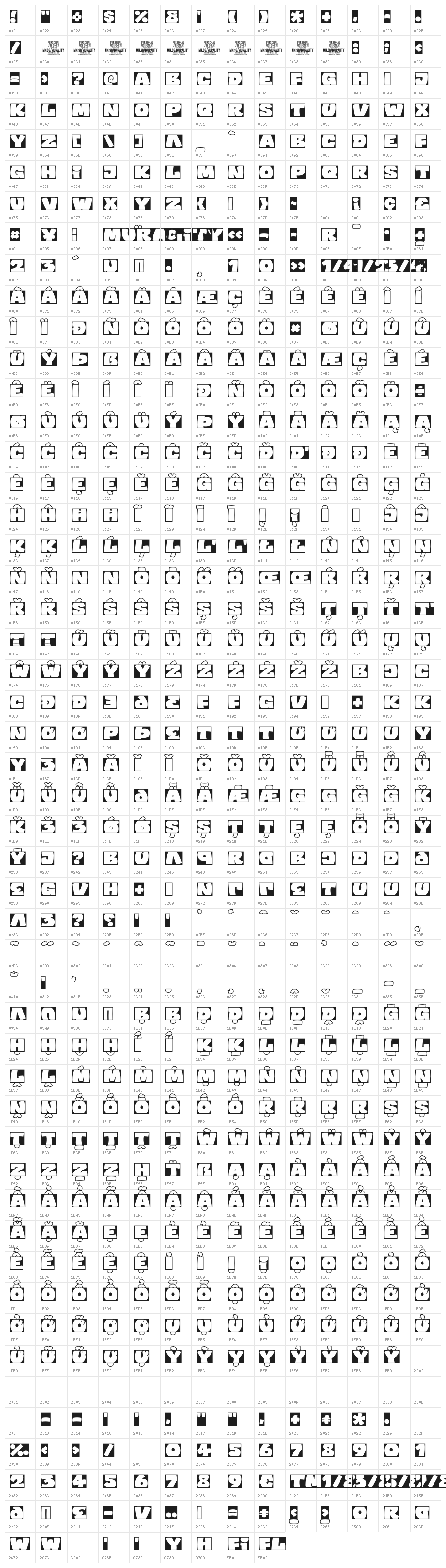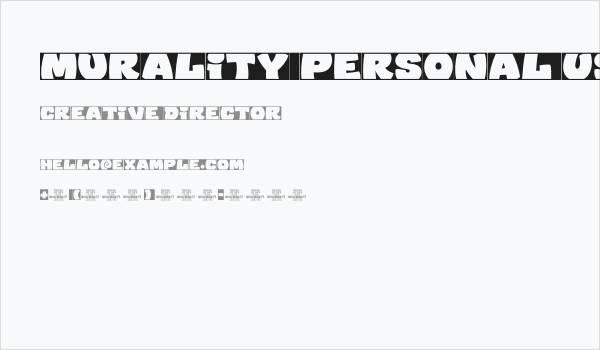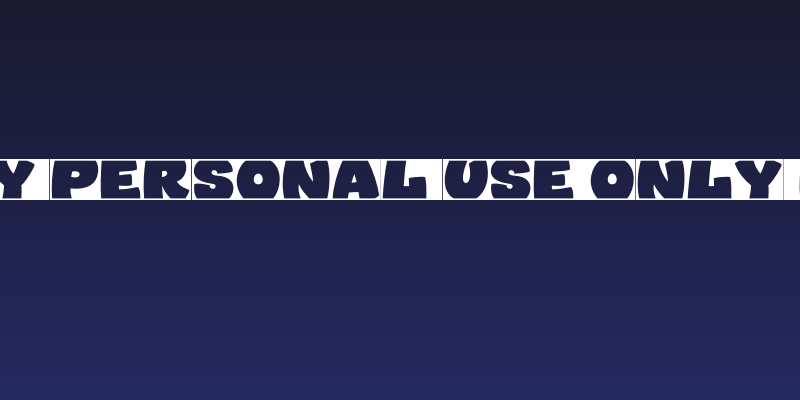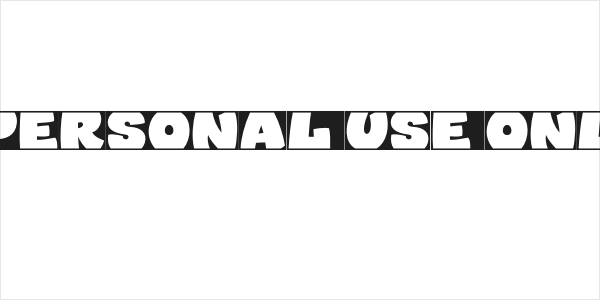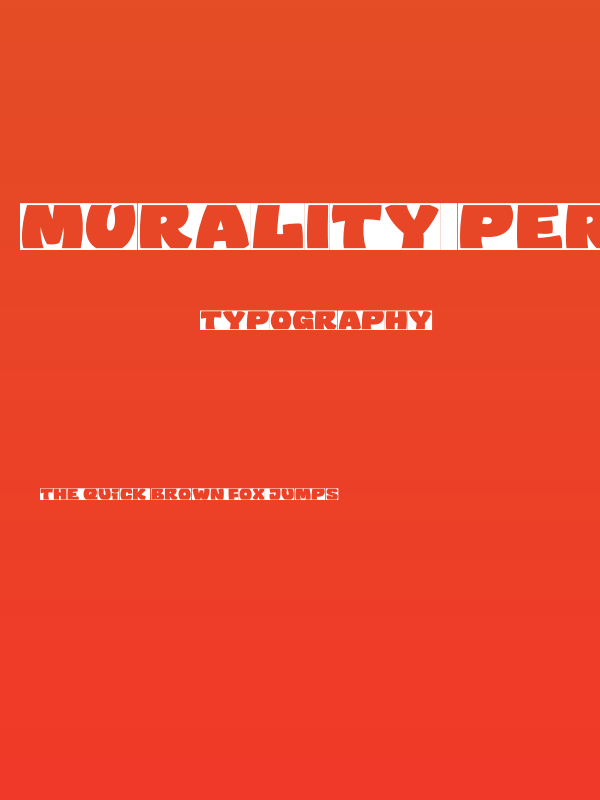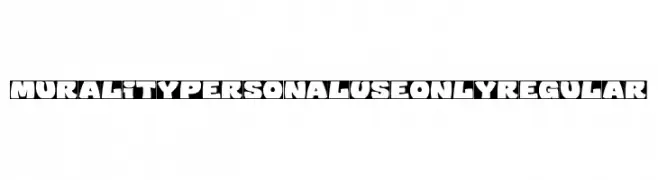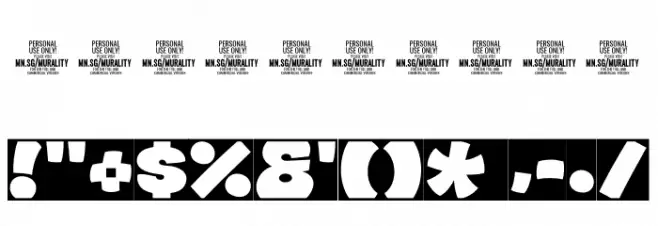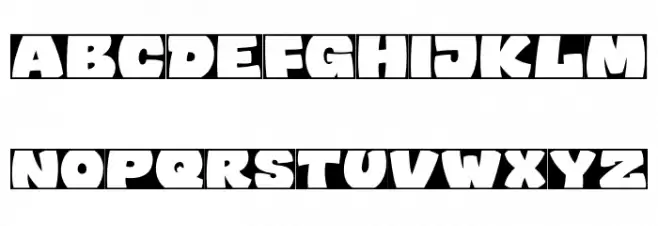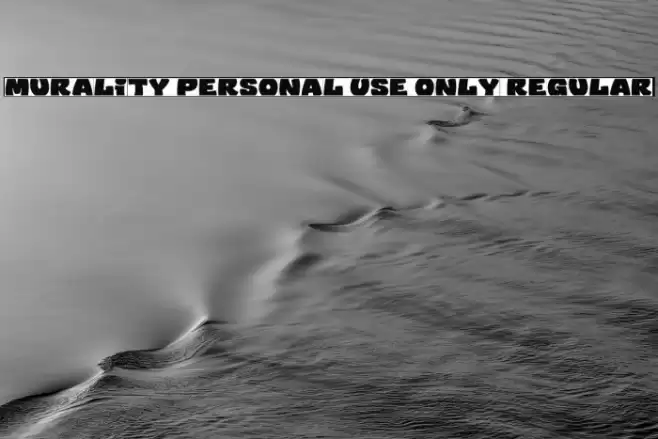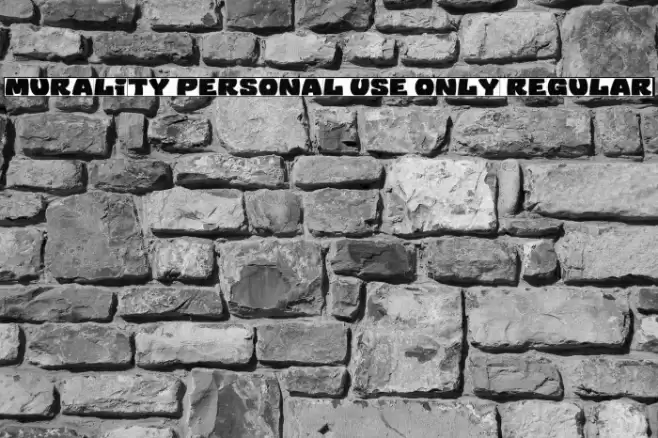
Murality PERSONAL USE ONLY Regular Font
Murality PERSONAL USE ONLY Regular Description
A bold, playful display font with thick, rounded letterforms and high contrast between positive and negative space. Each character is enclosed in a solid rectangular block, giving a mural-like, graffiti-inspired appearance. The shapes are irregular and organic, contributing to a whimsical and eye-catching style.
| Overall Style | Decorative, Playful, Graffiti-inspired |
| Use Case | Headlines, Posters, Logos, Signage |
| Proposed Projects | Posters, murals, event flyers, children’s books, branding for creative industries, signage. |